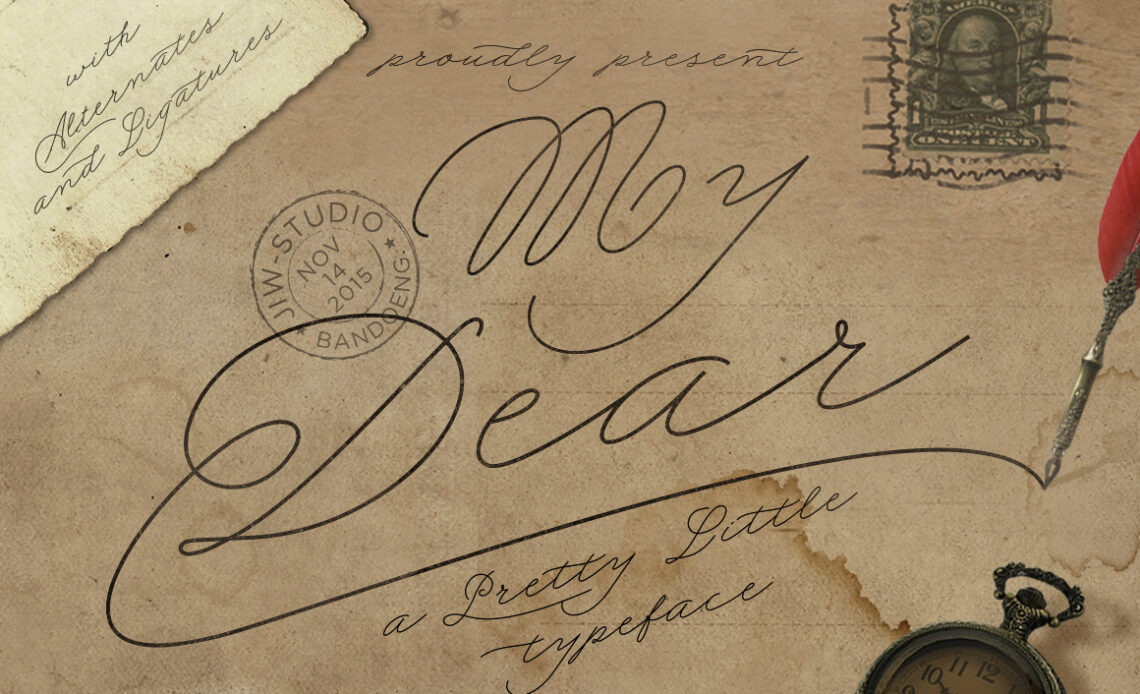
Behold, My Dear Font, a script font family that exudes timeless elegance with its classic curves and graceful terminals. Step into a world of captivating calligraphy, reminiscent of vintage postcards and handwritten manuscripts. This monoline font, crafted with precision, will infuse your designs with warmth, charm, and a touch of nostalgia.
My Dear Font is more than just a collection of letters; it's an artistic expression that speaks to the heart. With its sweeping strokes and playful flourishes, this font family has the power to transform ordinary words into enchanting works of art. Let your imagination run wild as you explore the endless possibilities of My Dear Font.
Whether you're designing wedding invitations, branding materials, or heartfelt personal projects, My Dear Font will add a touch of warmth and personality that can't be replicated. Its versatility knows no bounds, allowing you to create designs that are both captivating and timeless.
Embrace the beauty of calligraphy and make your words dance with My Dear Font. Let the flowing lines and elegant curves guide you as you create designs that resonate with your audience. Discover the joy of handwritten charm and let My Dear Font take your creativity to new heights.